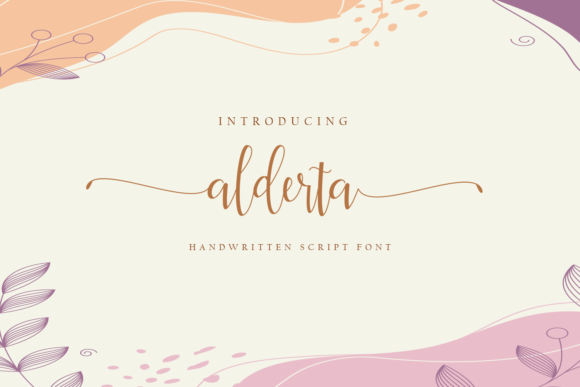
Introducing Alderta Font - A Timeless Treasure for Your Creative Journey
In the realm of digital artistry, where words take flight and colors dance, there exists a font that captivates and enchants - Alderta Font. This exquisite creation, born from the fusion of classic typography and modern aesthetics, stands as a testament to the enduring beauty of handwritten scripts.
Alderta Font, a member of the distinguished script font family, beckons you to embark on a voyage of creative expression. With its graceful curves and playful flourishes, it possesses an inherent charm that breathes life into your designs, transforming them into works of art.
Step into a world where elegance and versatility intertwine seamlessly. Alderta Font's understated sophistication lends itself effortlessly to a symphony of design possibilities. Craft breathtaking wedding invitations that exude timeless romance, or design enchanting stationary art that captures the essence of heartfelt sentiments. Elevate your social media presence with captivating posts that demand attention, or create heartwarming greeting cards that convey your love and appreciation.
Let Alderta Font be your muse as you explore the boundless realms of creativity. Its authentic feel invites you to unleash your imagination, conjuring up designs that resonate with emotion and authenticity. Embrace the magic of Alderta Font and embark on a journey where your creative dreams take flight.